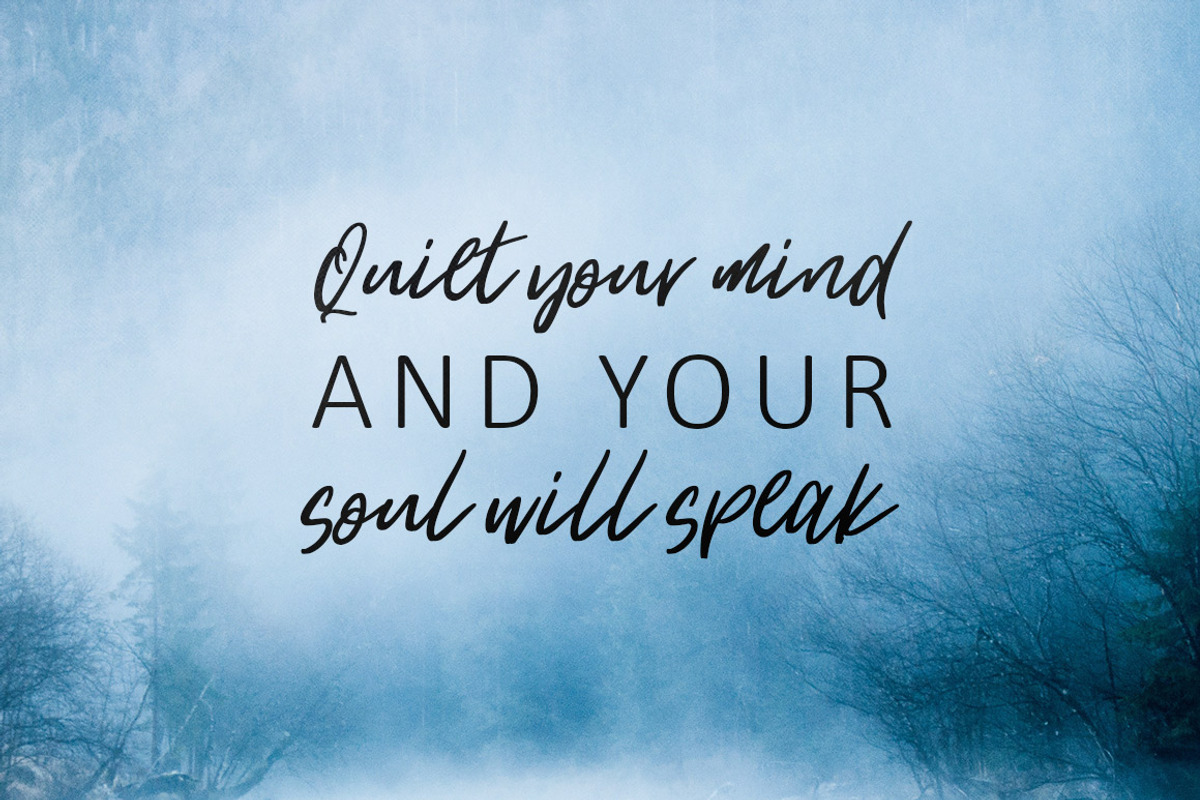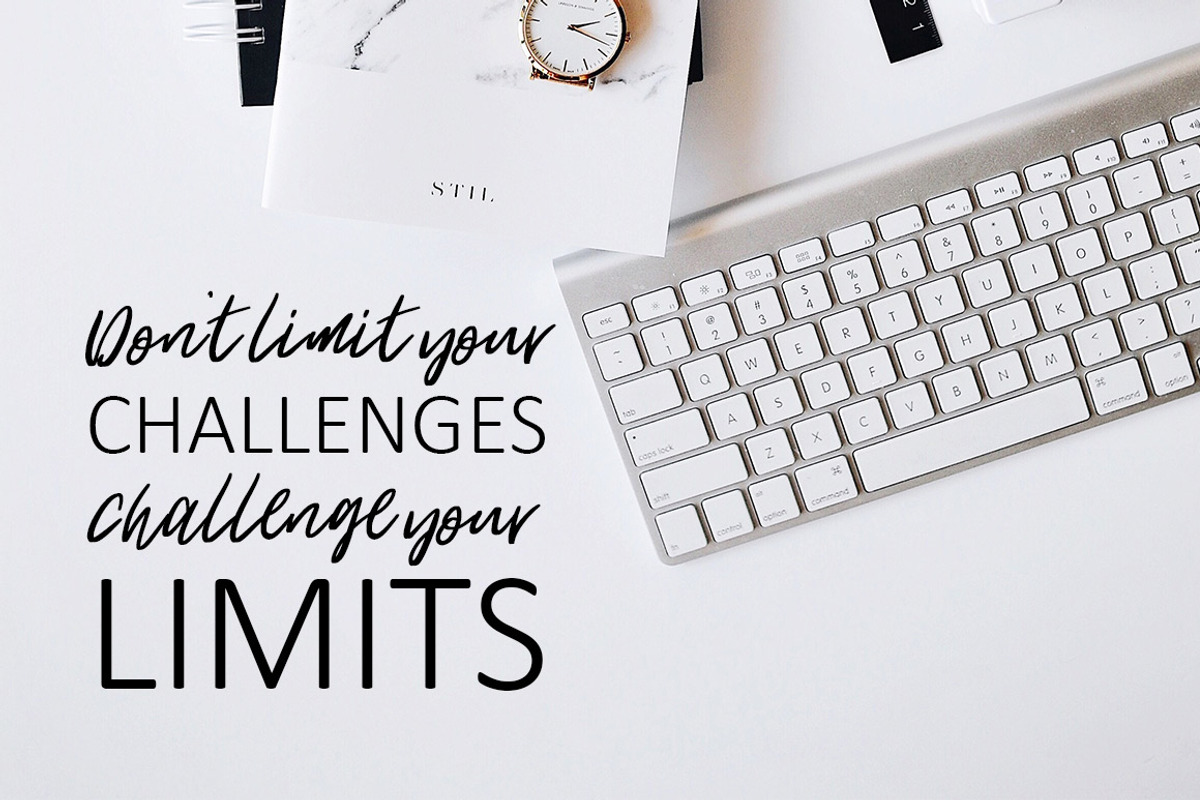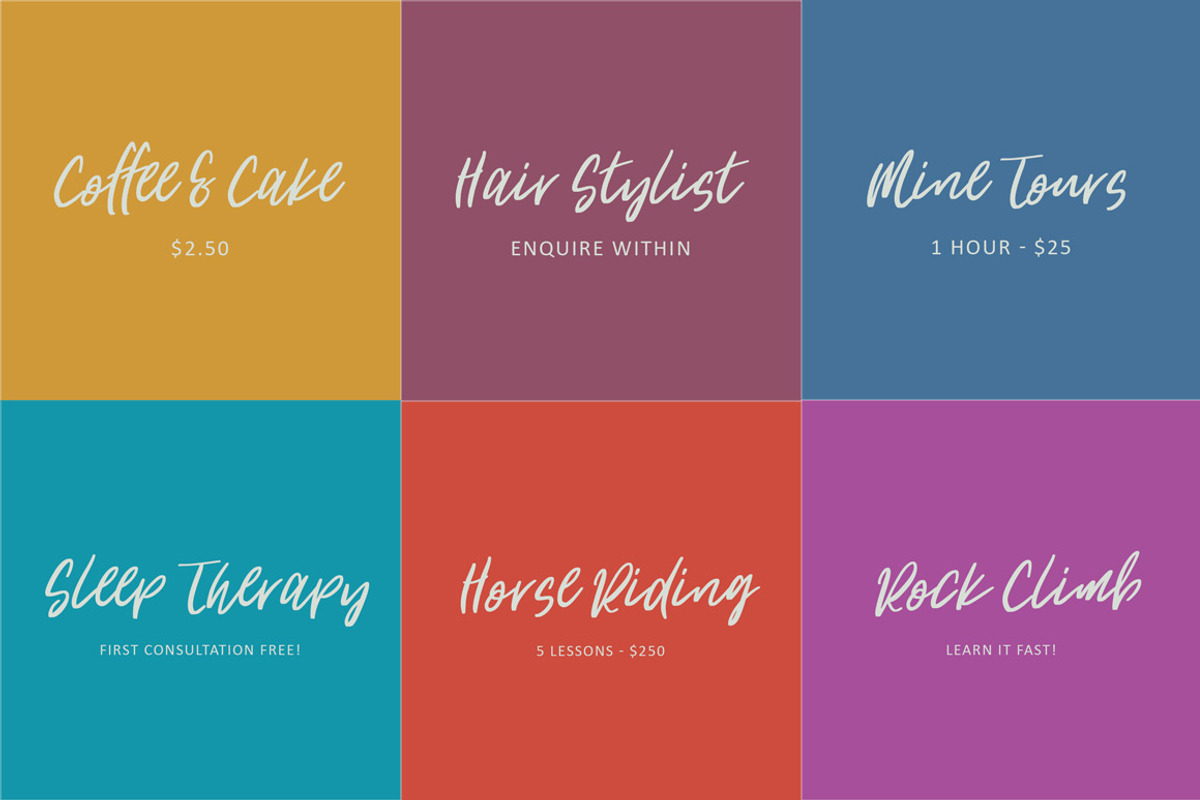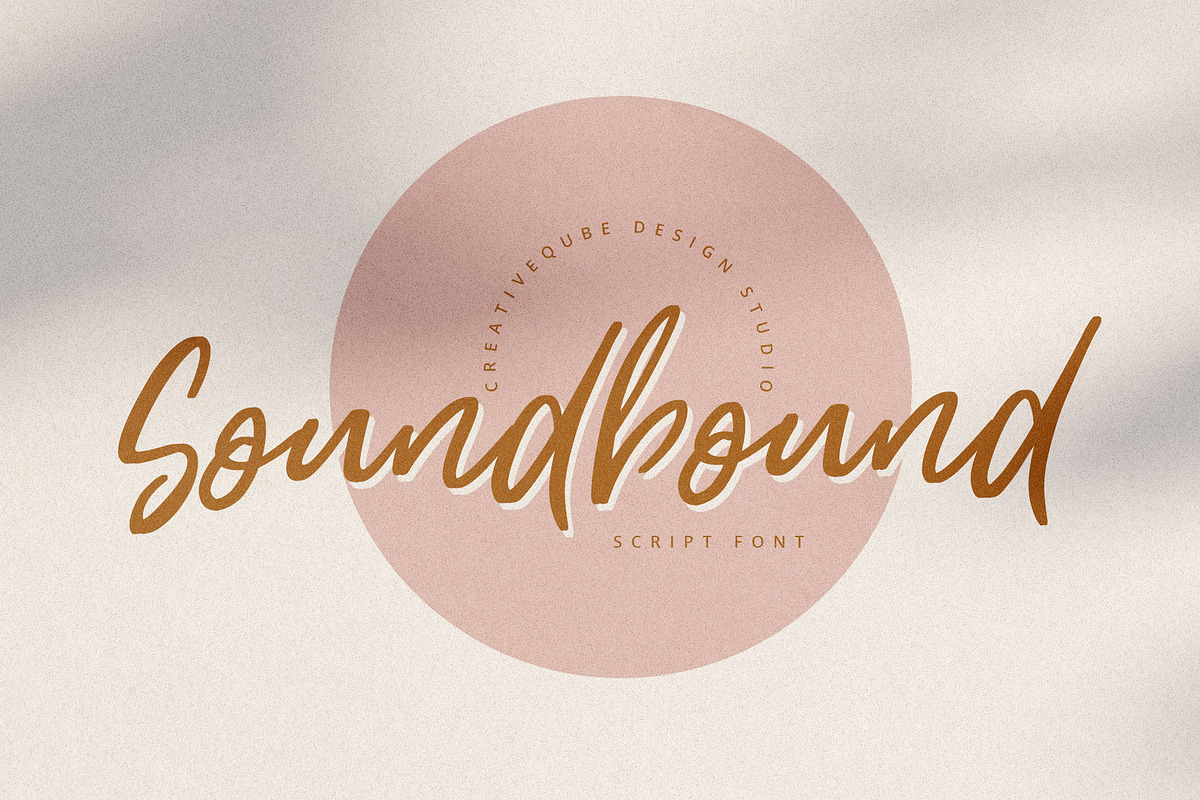
Soundbound Script Font
Introducing Soundbound brush script font.
Soundbound is a hand brushed imperfect script font perfect for logos, ads, social media, weddings, quotes, printables, blogs, websites, and much more.
Why Soundbound Script Font is worth a look
Soundbound Script Font by Creativeqube Design fits naturally into Branding, posters, packaging, typography.